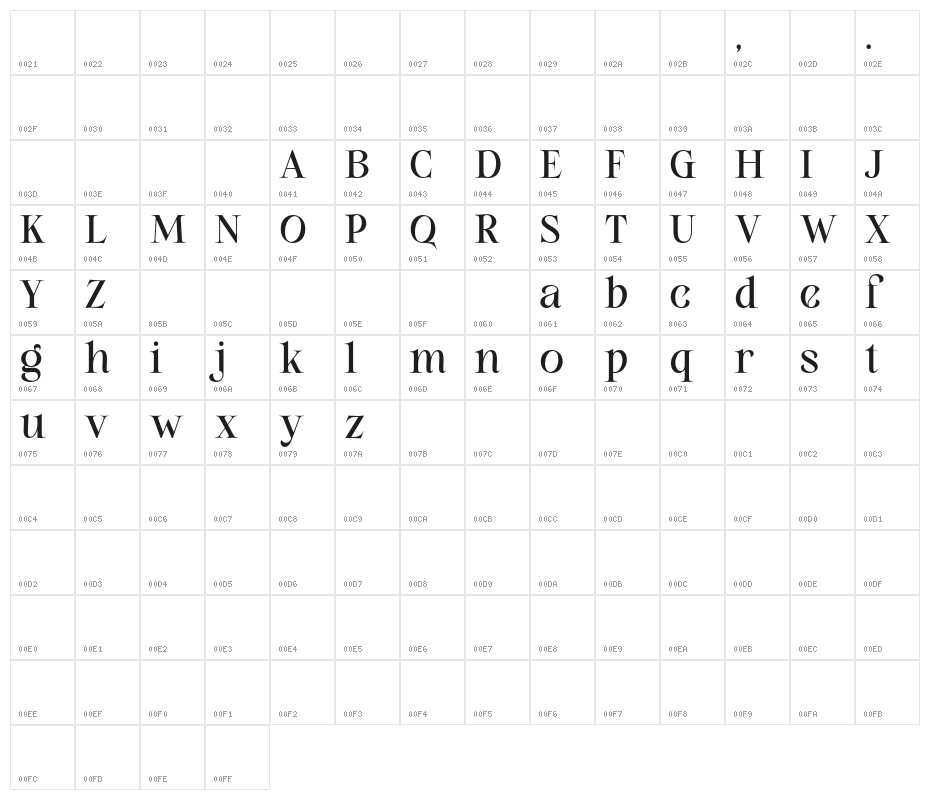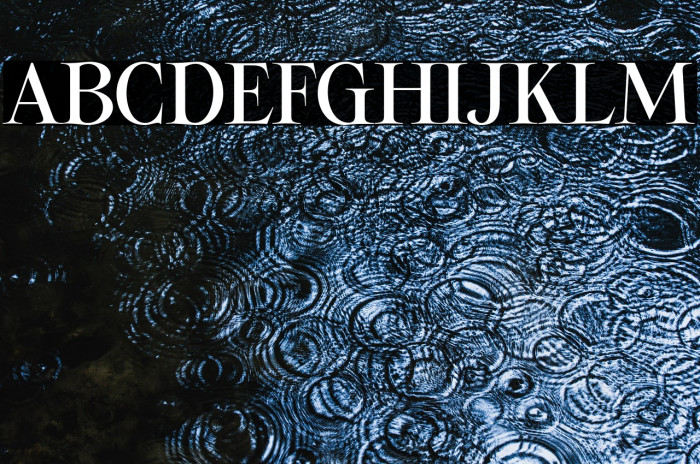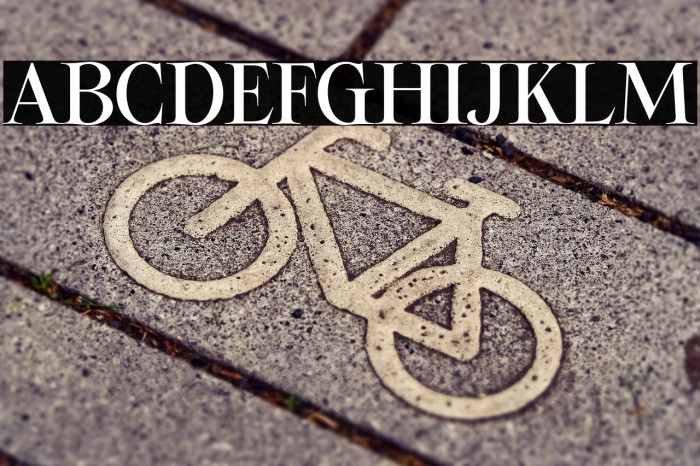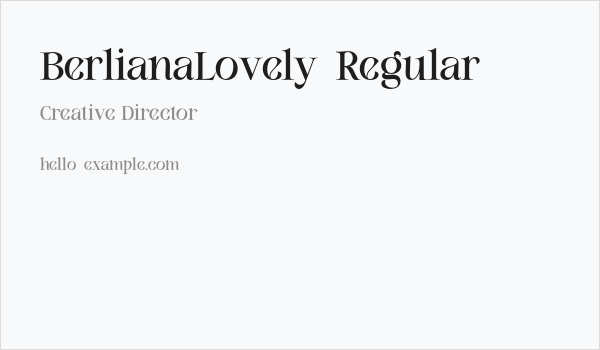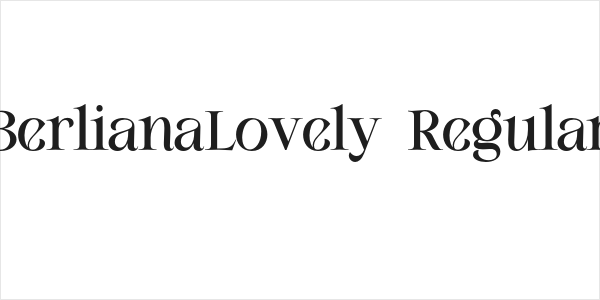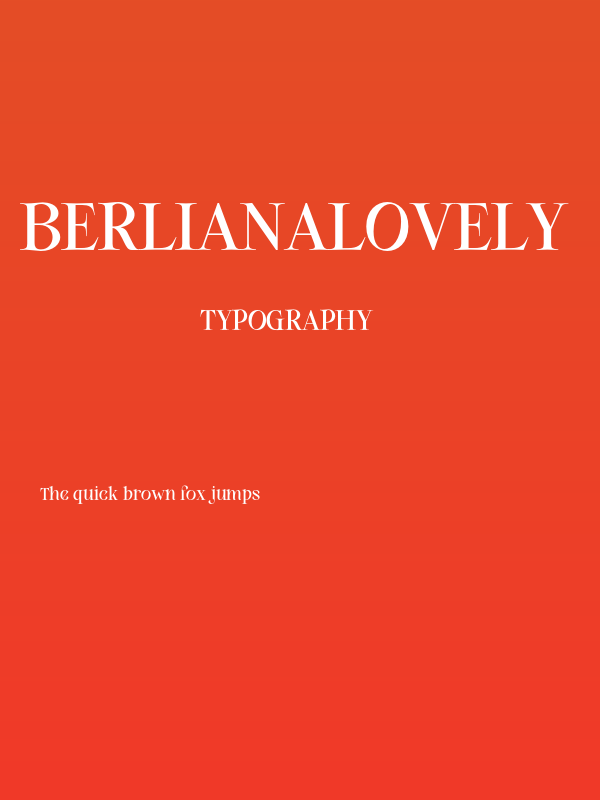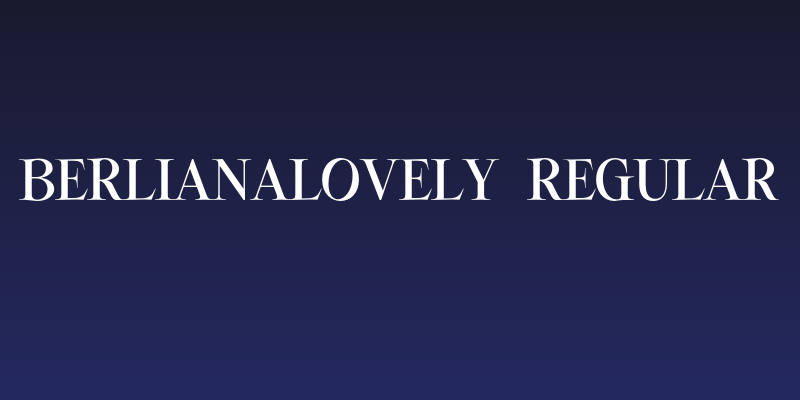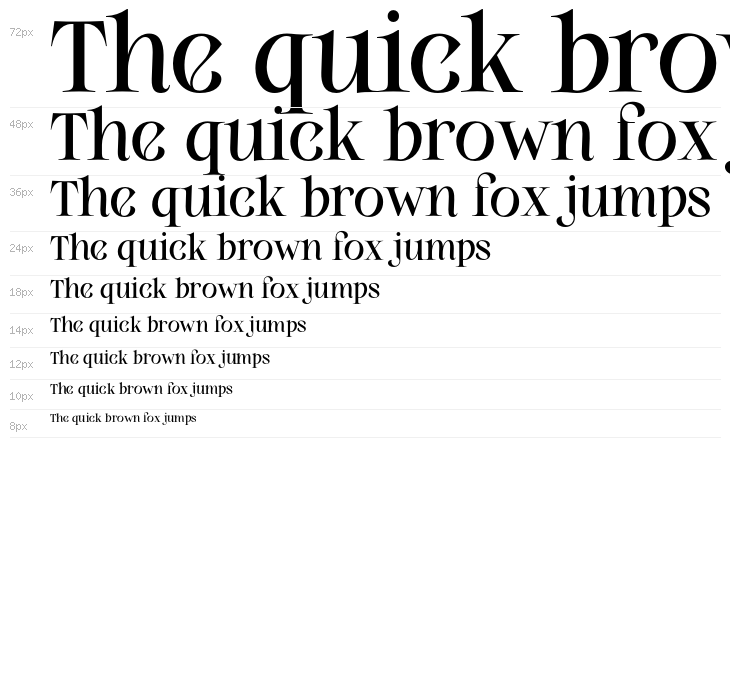
BerlianaLovely-Regular Font
BerlianaLovely-Regular Description
This font exhibits a classic serif style with elegant, flowing lines and a sophisticated appearance. The uppercase letters are bold and commanding, while the lowercase letters maintain a graceful and refined look. The serifs are pronounced, adding a touch of traditional charm. The overall design is balanced, with a medium contrast between thick and thin strokes, giving it a timeless appeal. The font's style is both formal and versatile, making it suitable for a variety of design applications.
| Proposed Projects | Ideal for wedding invitations, formal event programs, book covers, and luxury brand logos. |